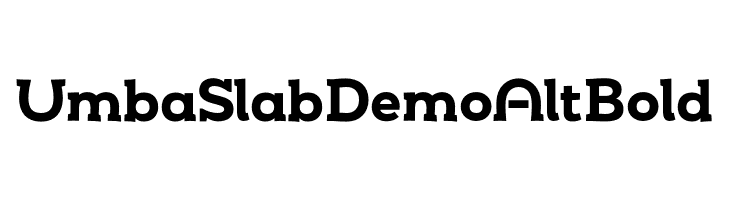
A bold slab serif font with a modern yet classic appeal.
A modern slab serif font with bold, geometric letterforms and a contemporary style.
A modern slab serif with geometric shapes and consistent strokes.